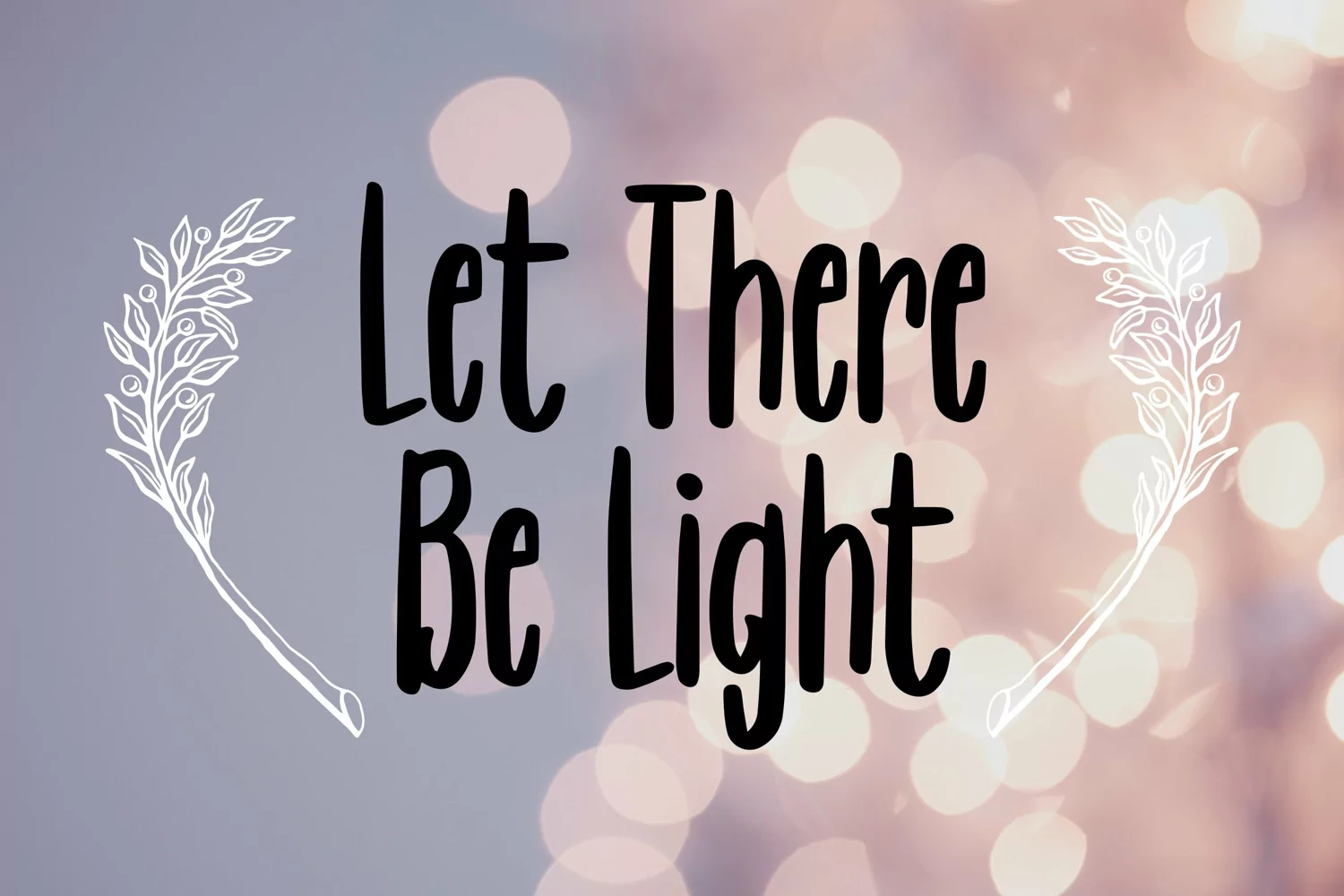
Bubble Gummy - Beauty Hand drawn Font that contain lowercase, uppercase, symbol, and also support multi language. There’s a lot ligatures in this font. This Font also comes with ligatures, alternates and many more. this font suitable for fashion, branding, catalog and other design what you want.